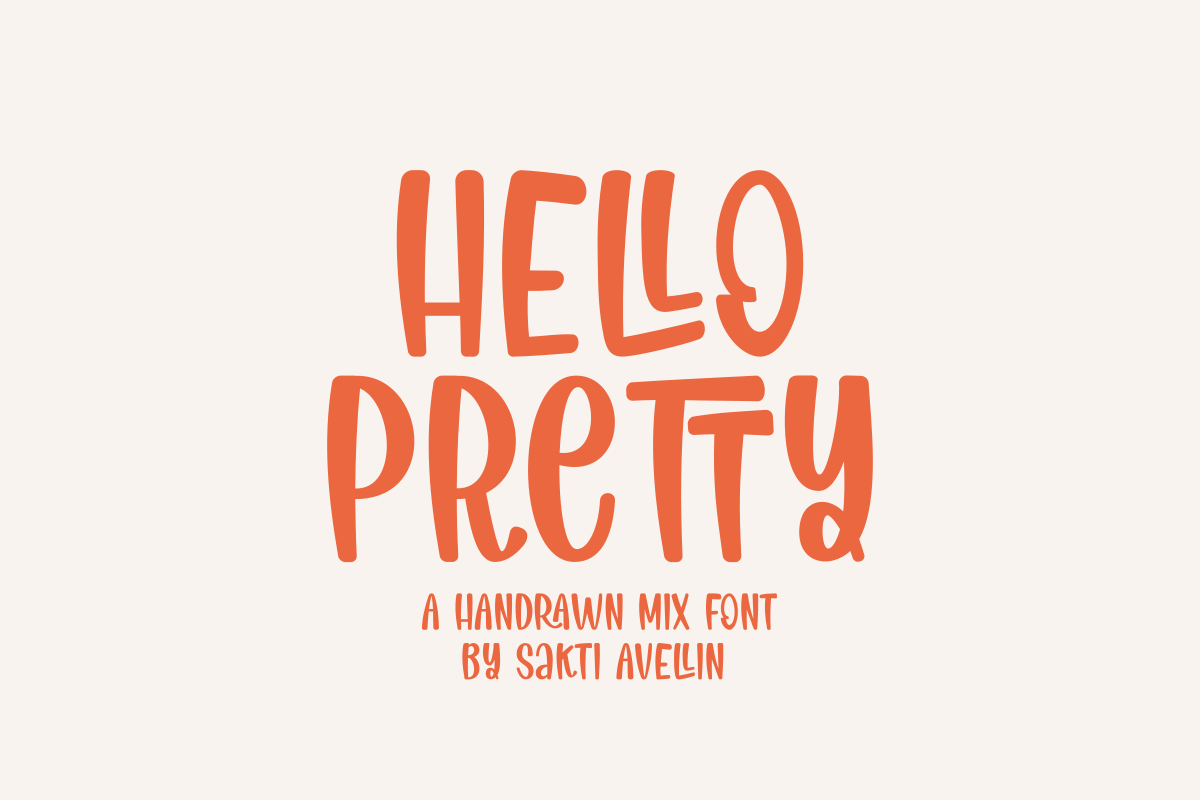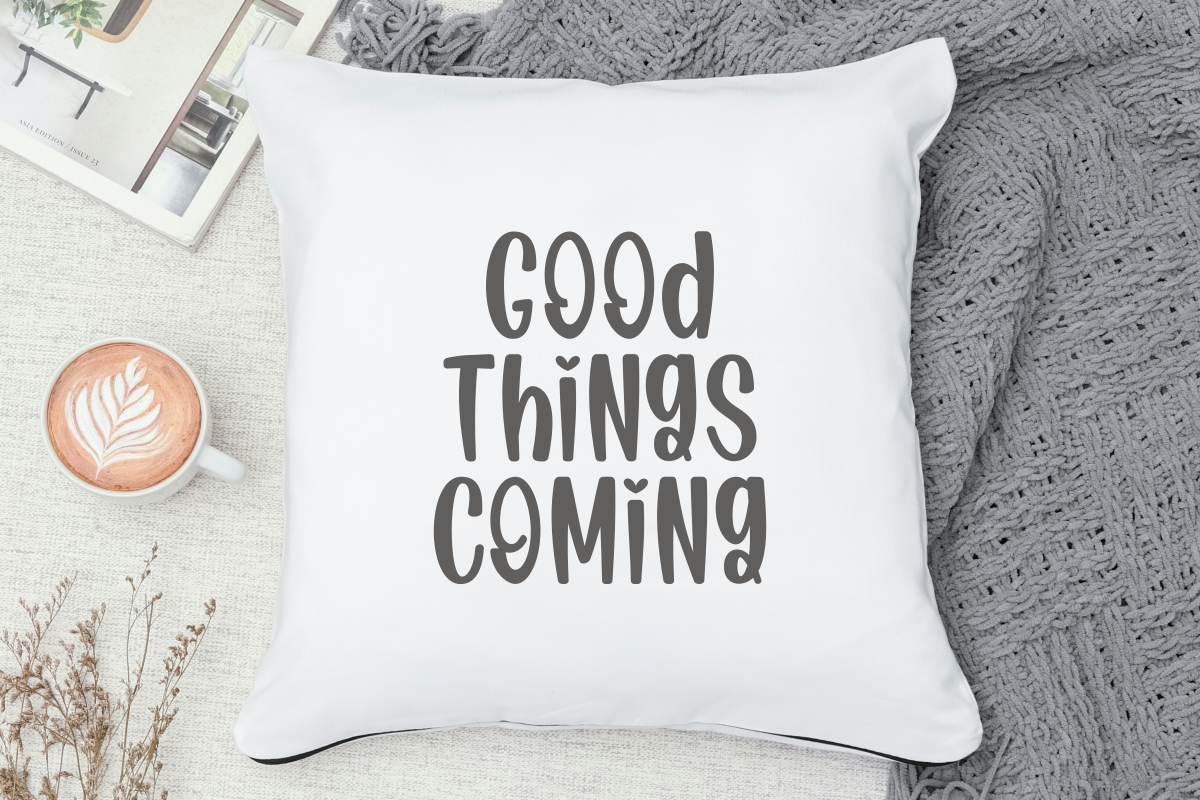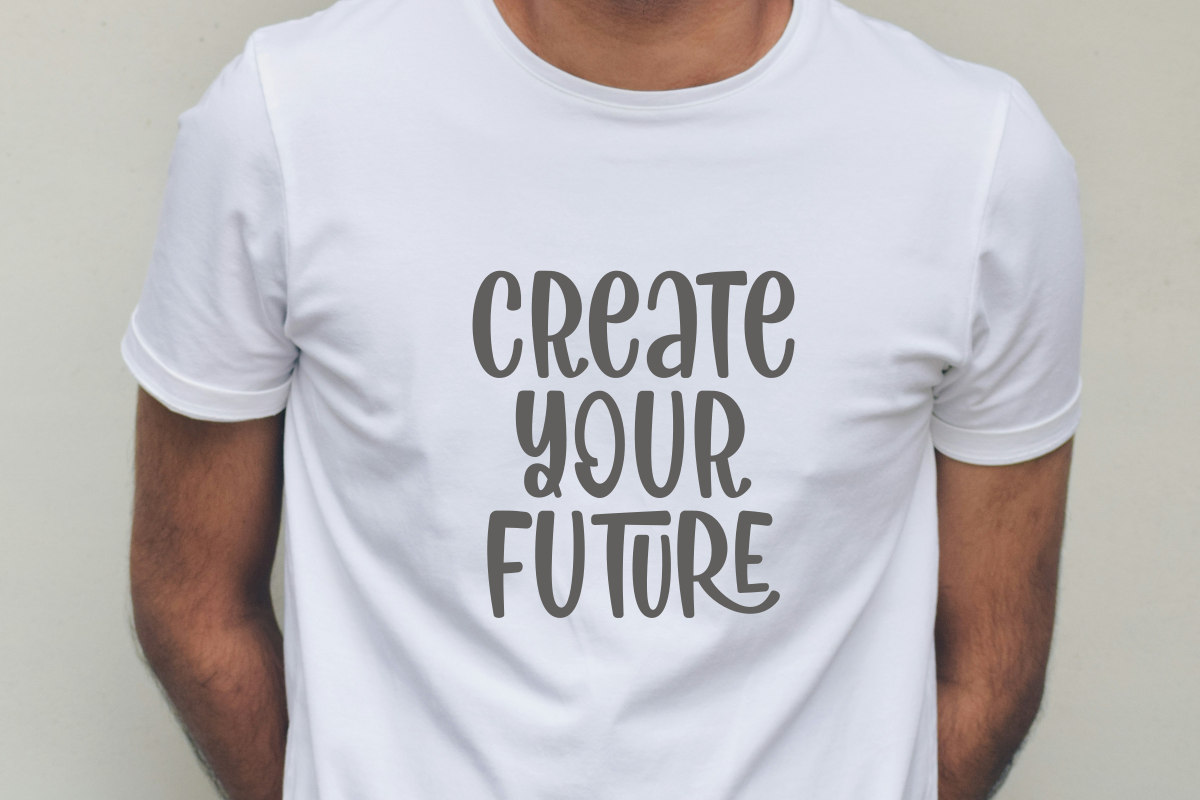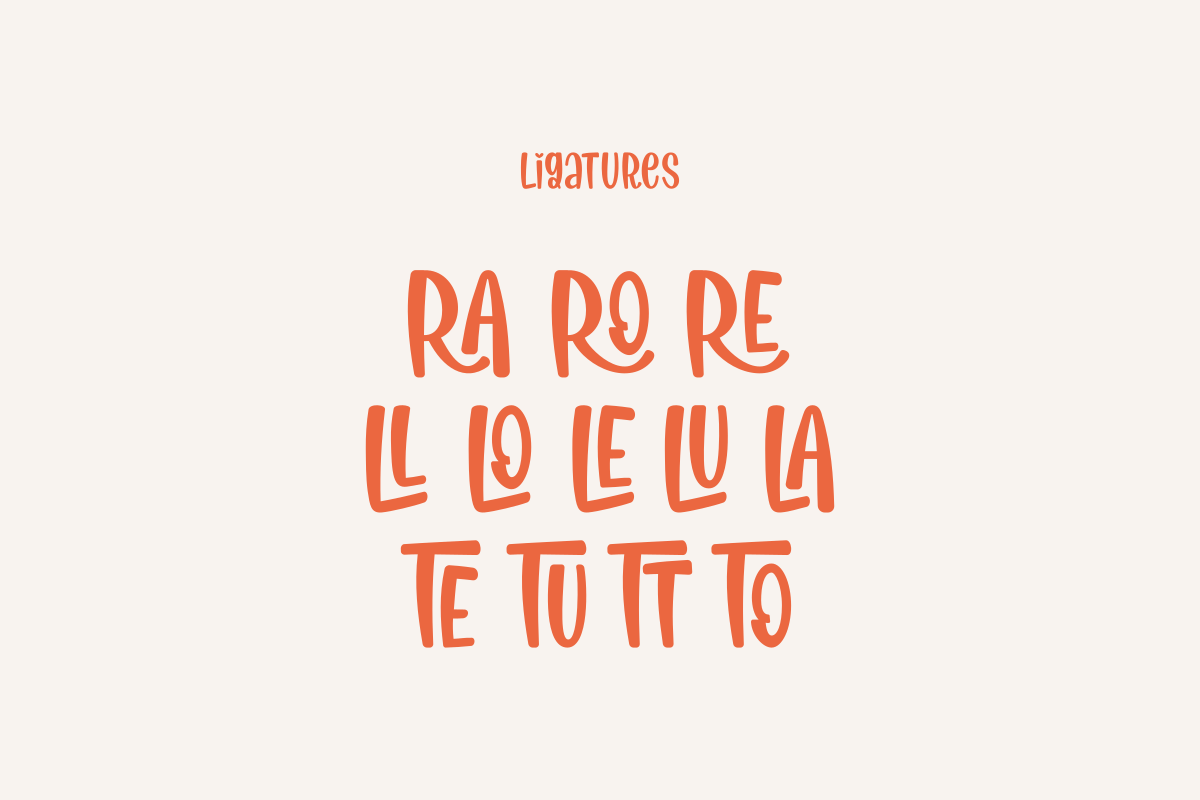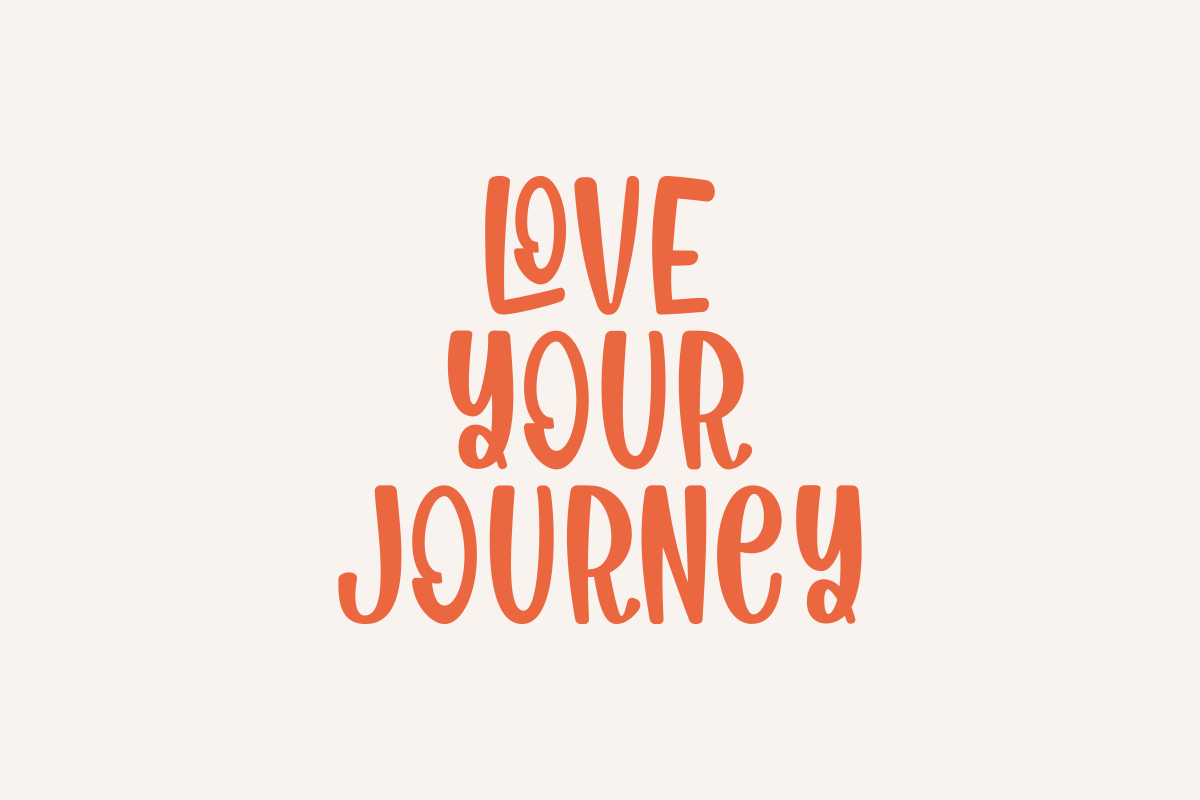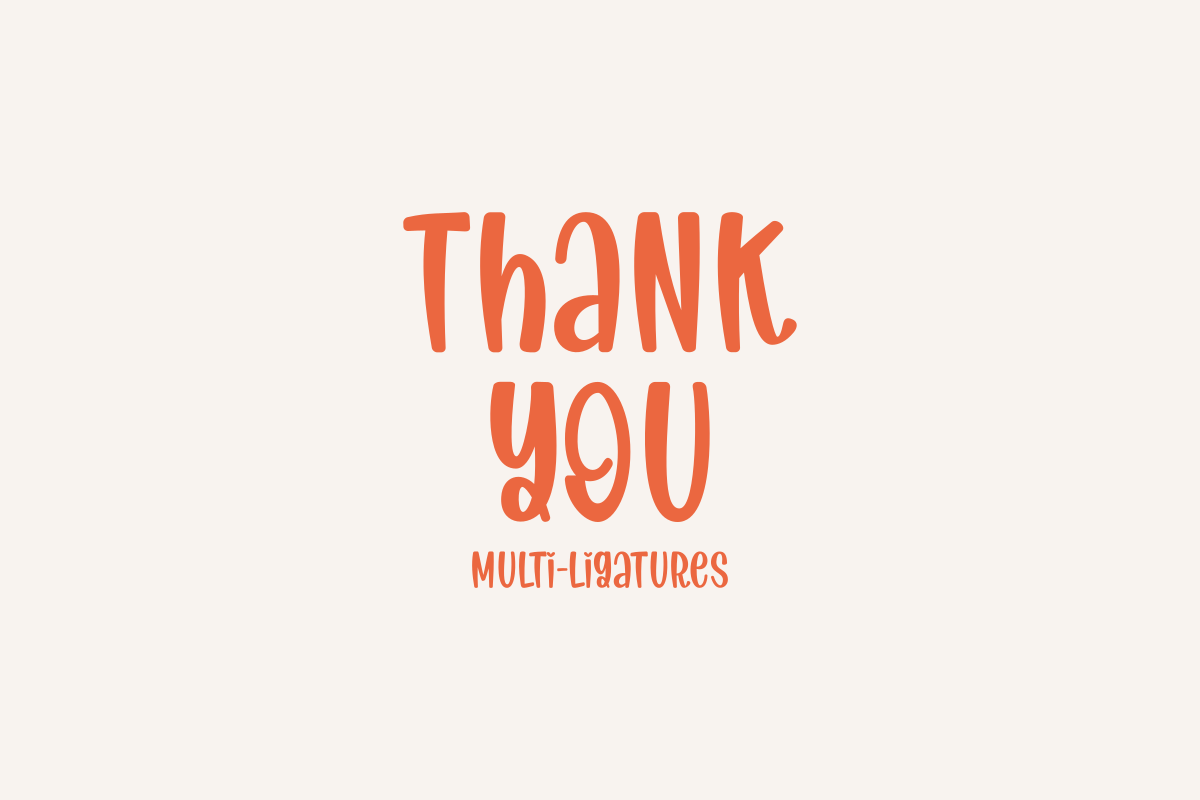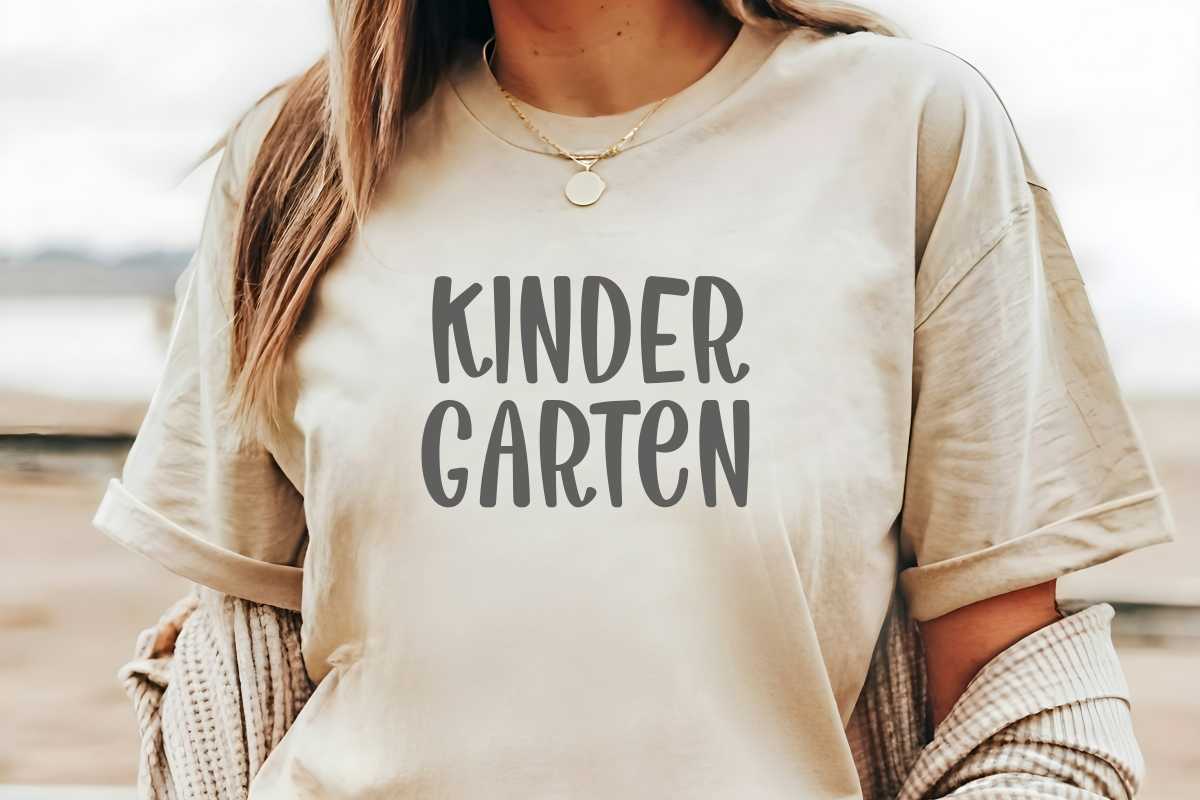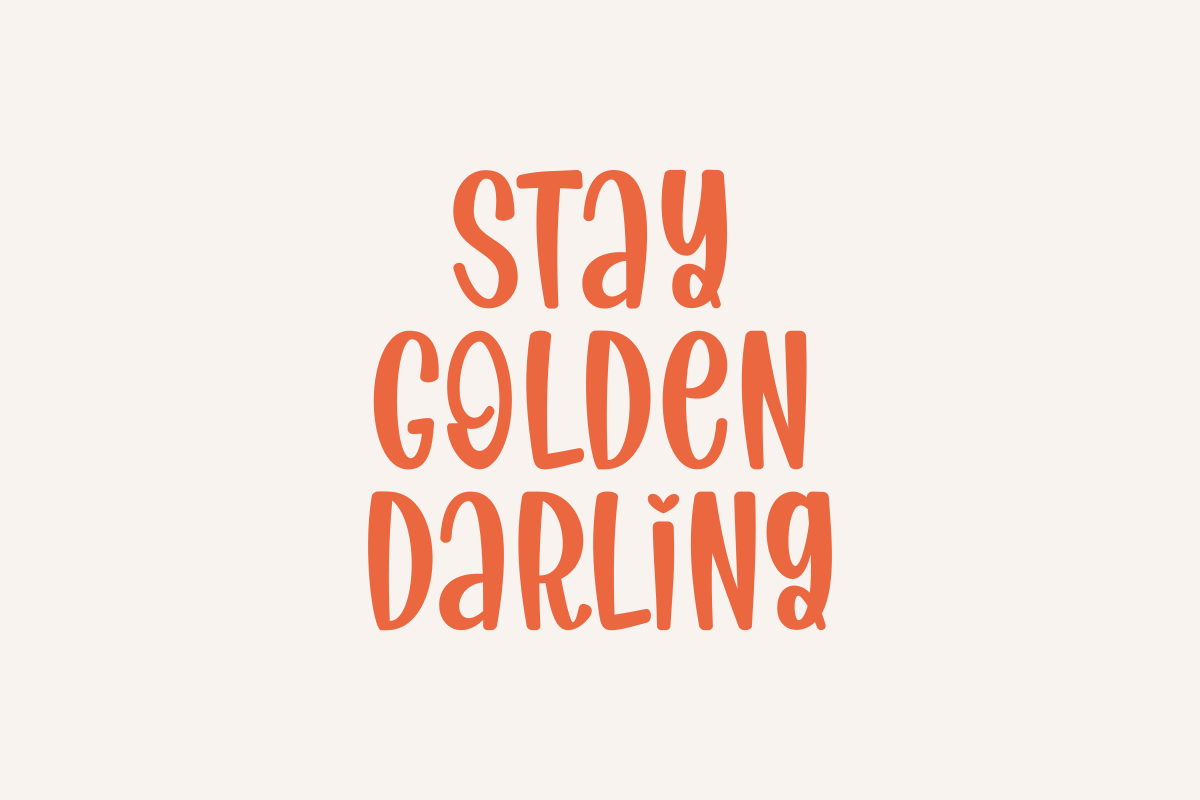
Hello Pretty - Handwritten Mix Font
Hello Pretty is a charming, tall, and effortlessly stylish handdrawn mix font designed to bring an authentic, personal touch to your creative work. This skinny handwritten font features a unique blend of slender letterforms and a casual, bouncy rhythm, making it essential for boutique branding, cute quote designs, personalized greeting cards, social media graphics, and aesthetic planner layouts. Its legible yet quirky style ensures it is a versatile display typeface for headlines and packaging, appealing to a modern audience that loves organic, feminine, and handcrafted aesthetics. Elevate your designs with the sweet and simple elegance of this modern hand-drawn font!